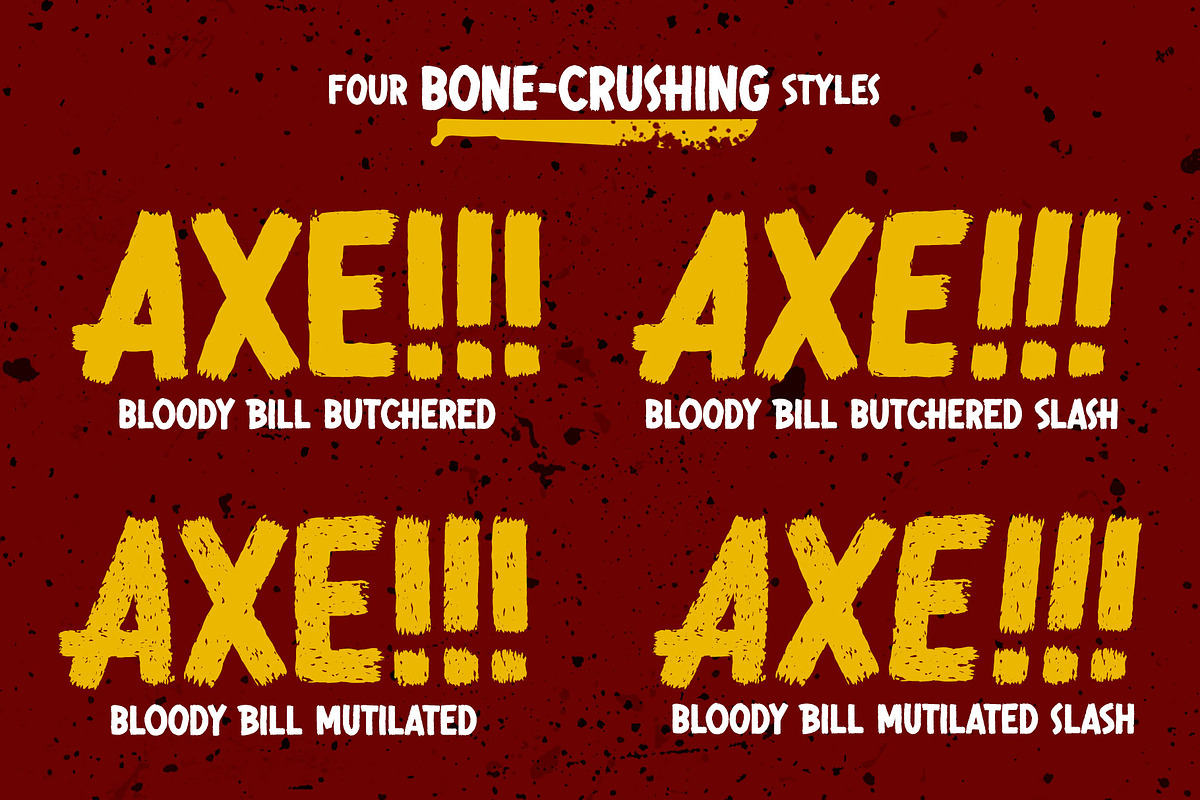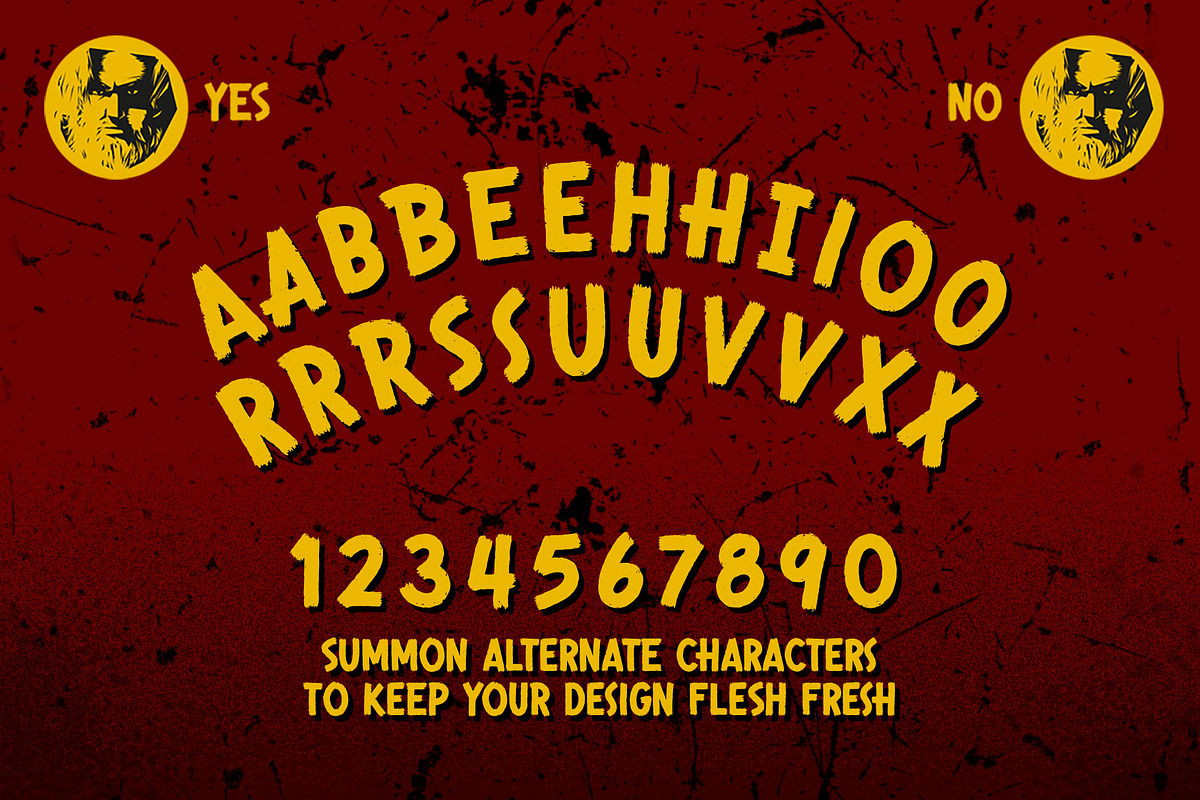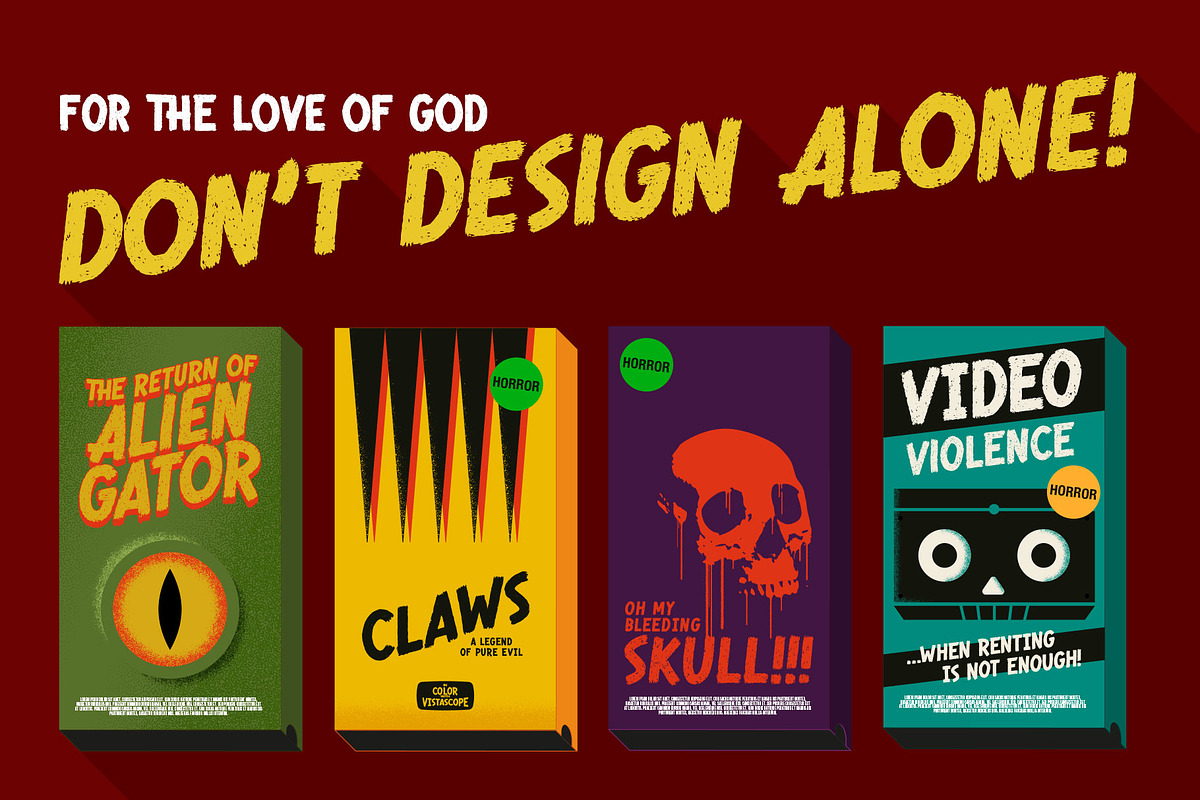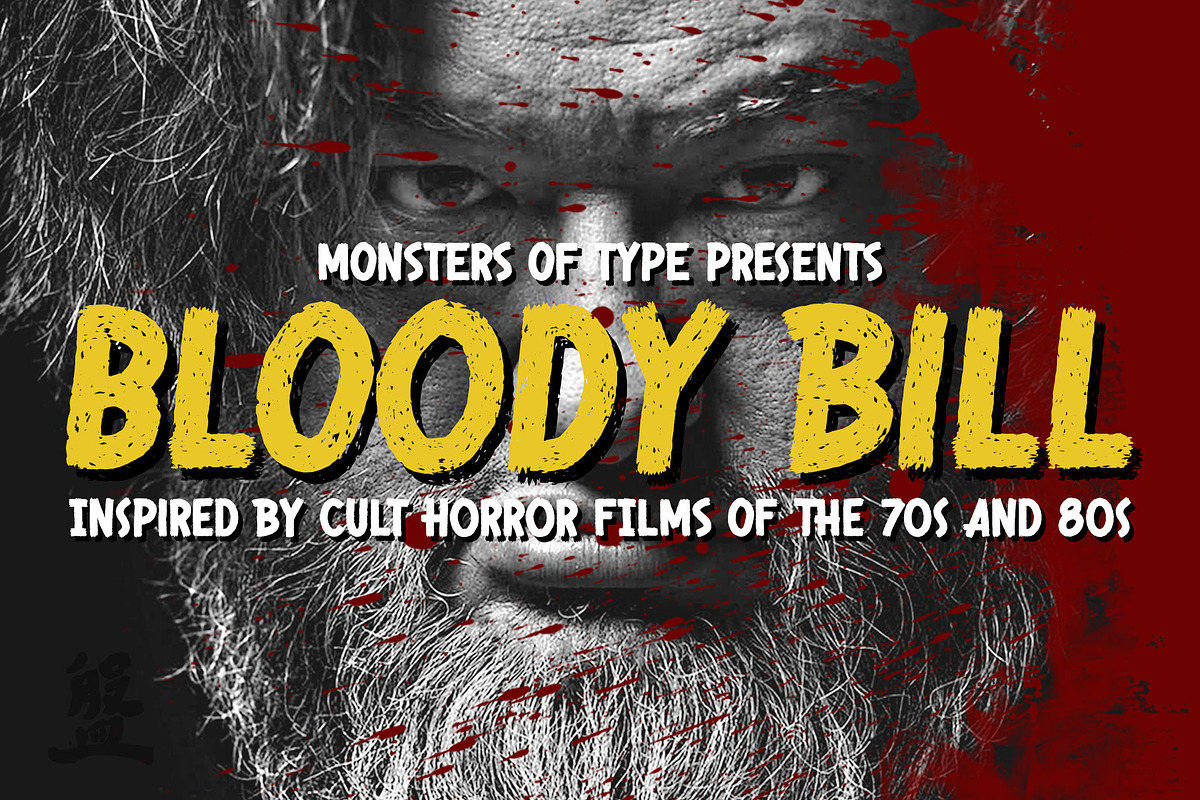
Bloody Bill Typeface
Inspired by cult horror hits from the 70s and 80s, Bloody Bill is just expressive enough while being easy to read. A severed handful of alternates add expressive playfulness just like a creepy clown with an axe to grind. Need to inspire a little more heart-racing terror into your work? Use one of the slash (slant) versions to instill even more fear in the eyes of all who will dare to view your typography.
This typeface is dedicated to Billy “Bloody Bill” Pon, a filmmaker and self proclaimed “Hauntrepreneur.” When Billy was diagnosed with Stage 4 Cancer recently this font was sold to raise money for his treatment. As of this version his cancer is in remission and he’s better than ever!
- A severed handful of alternates add expressive playfulness just like a creepy clown with an axe to grind.